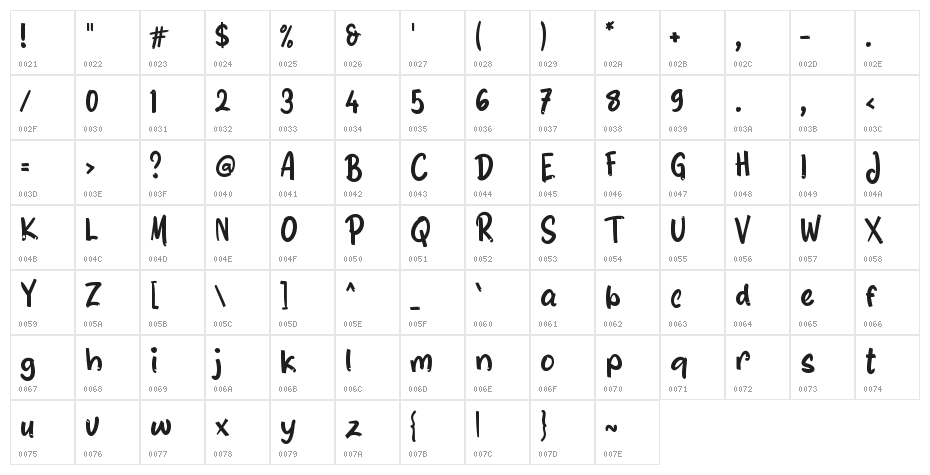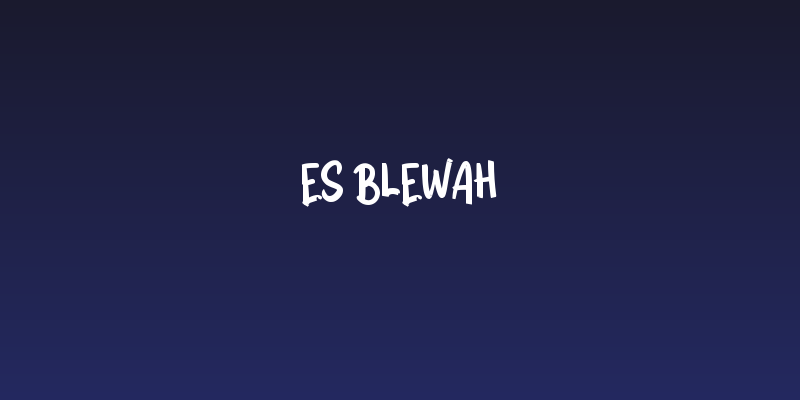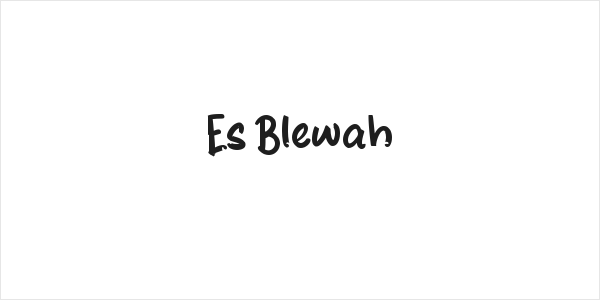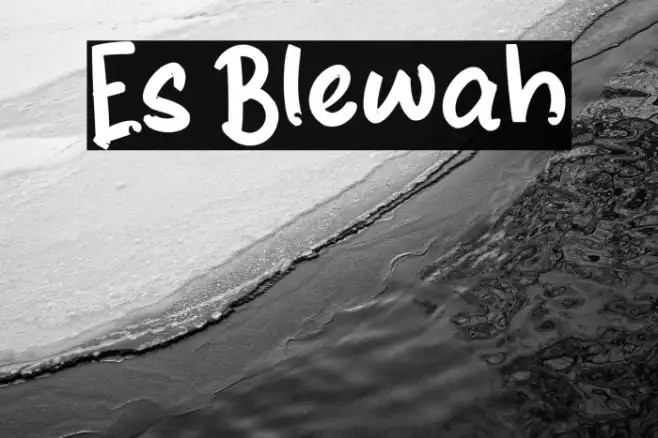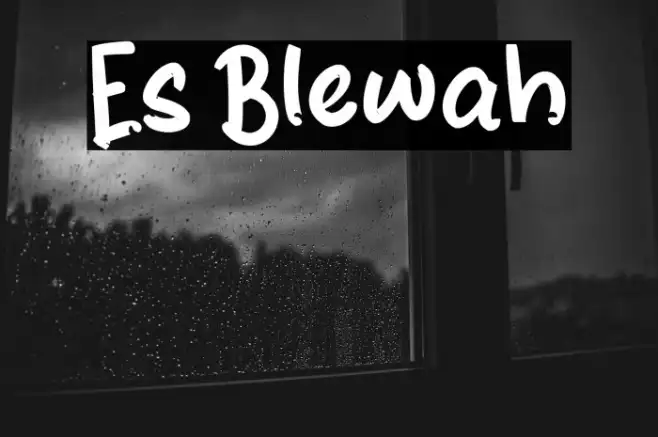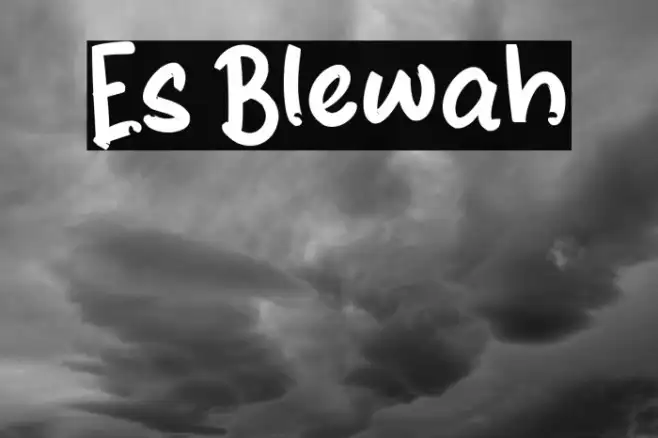
Es Blewah Font
Es Blewah Description
This playful and energetic font features bold, rounded characters with a whimsical flair. The letters have a hand-drawn quality, with slight irregularities that add to their charm. The uppercase and lowercase letters maintain a consistent style, while the numbers and special characters complement the overall design. The strokes are thick and uniform, providing a strong visual impact. This font is ideal for projects that require a fun and informal touch, such as children's books, party invitations, or playful branding. Its unique style makes it stand out, ensuring that any text set in this font will capture attention.
| Proposed Projects | Children's books, party invitations, playful branding, casual posters. |